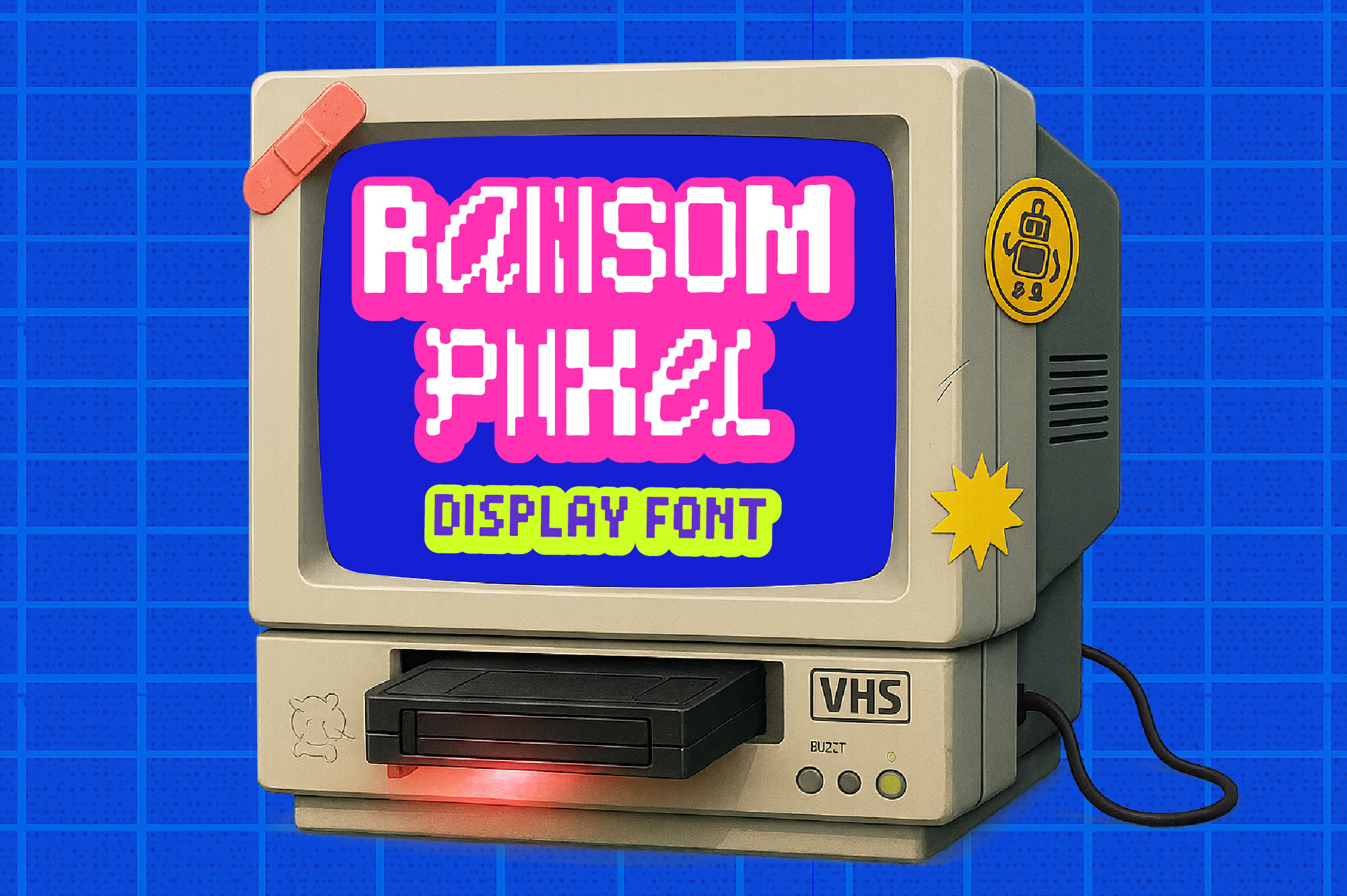
Ransom Pixel - Display Font
Ransom Pixel is a display typeface crafted for designers who thrive on retro game vibes and bold branding. This ransom-inspired font is built from 4 pixel-styled cuts, offering maximum flexibility in creating contrasting typography and allowing designers to mix and match for striking results. Whether for gaming events, indie titles, or nostalgic merch design, Ransom Pixel brings digital nostalgia and an experimental edge into modern design.
Ransom Pixel includes:
- 4 styles of pixel ransom typefaces
- Uppercase, lowercase, numerals, symbols, and punctuation
- Alternate character set for extra variation